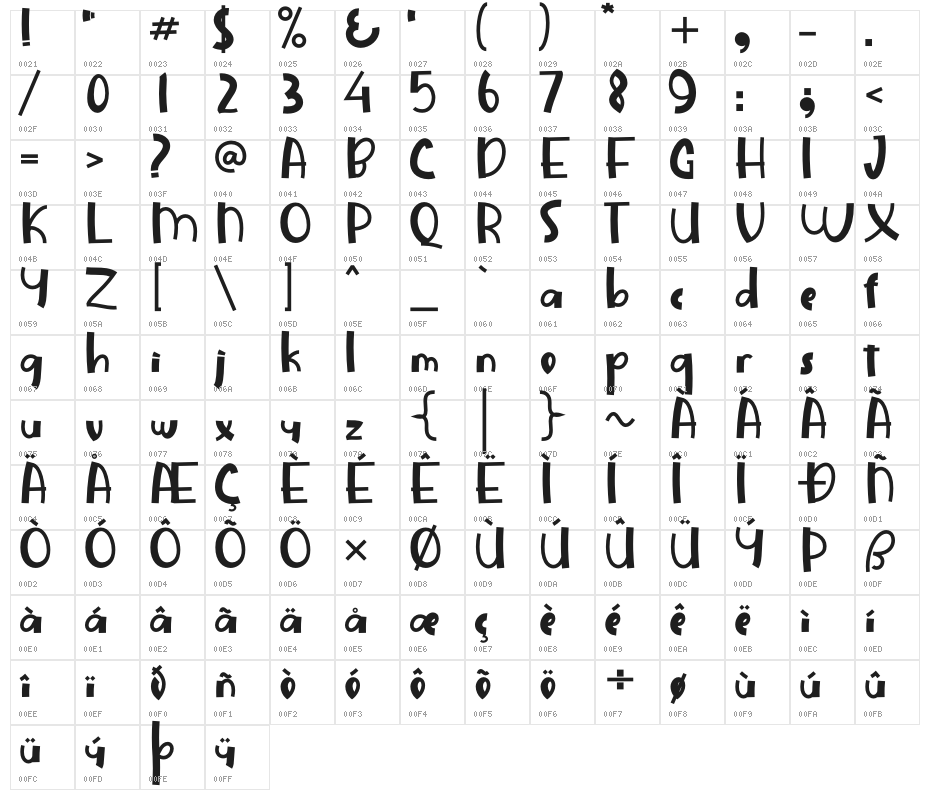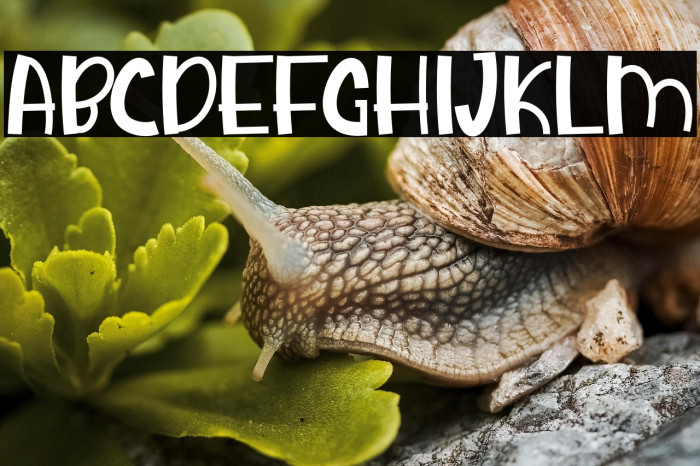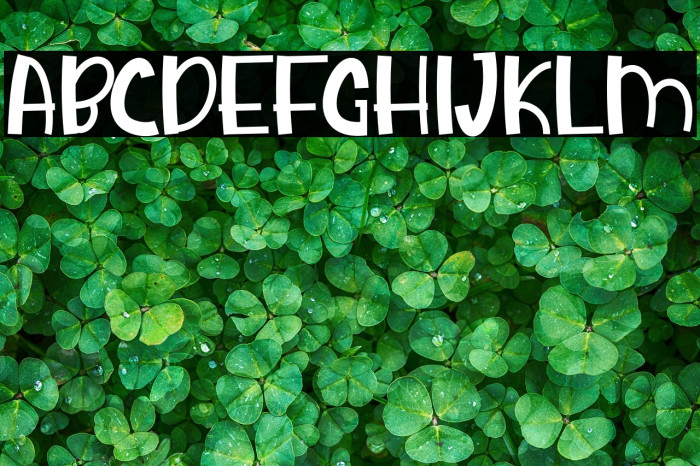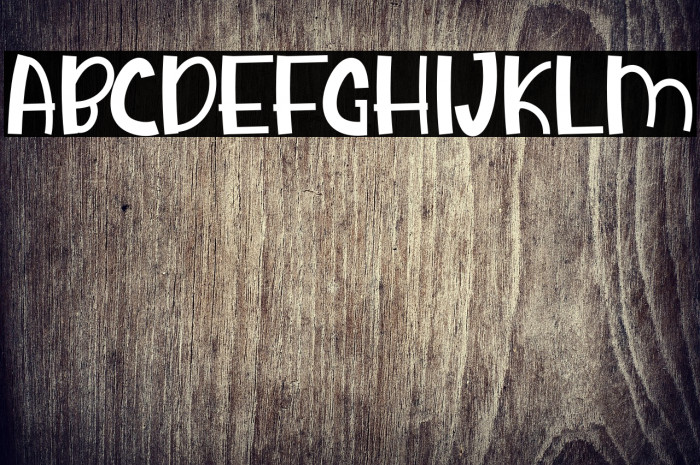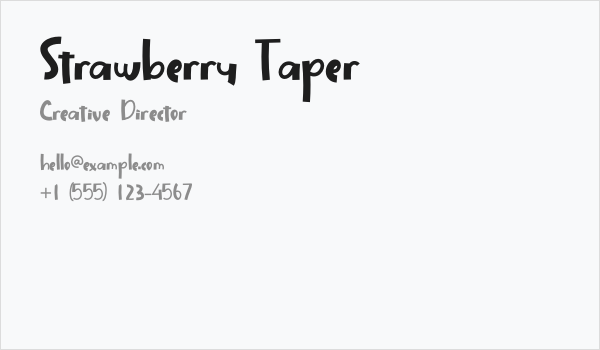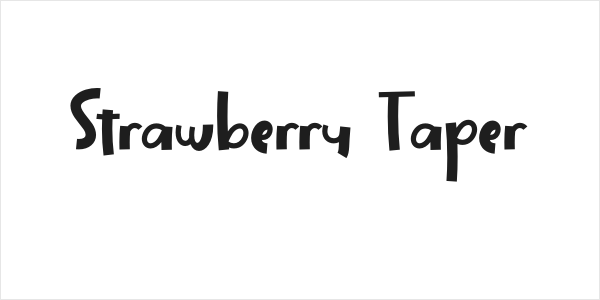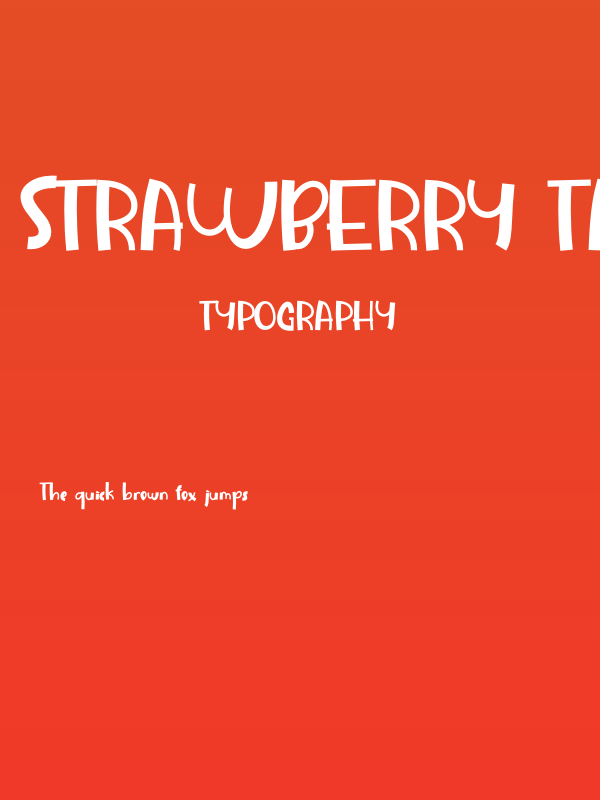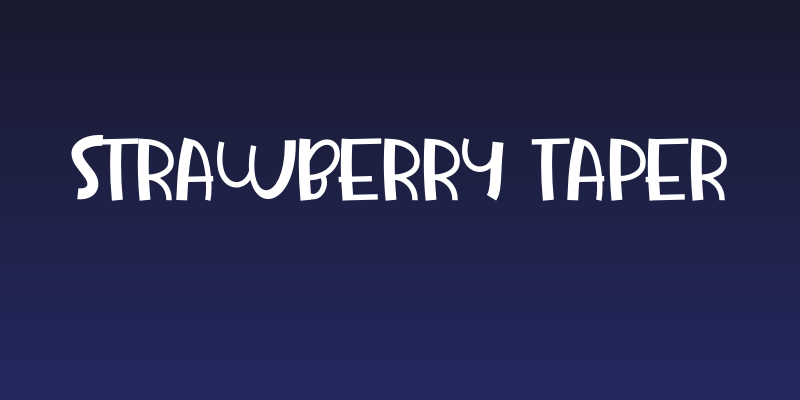
Strawberry Taper Font
Strawberry Taper Description
This playful and whimsical font features a unique blend of bold and quirky characteristics. The letters are slightly irregular, with varying stroke widths that give it a hand-drawn feel. The uppercase and lowercase letters maintain a consistent style, with rounded edges and a slightly tilted appearance, adding to its charm. The numbers and special characters follow the same playful design, making it suitable for creative and informal projects. Its distinct style makes it stand out, perfect for capturing attention in a fun and engaging way.
| Overall Style | Whimsical |